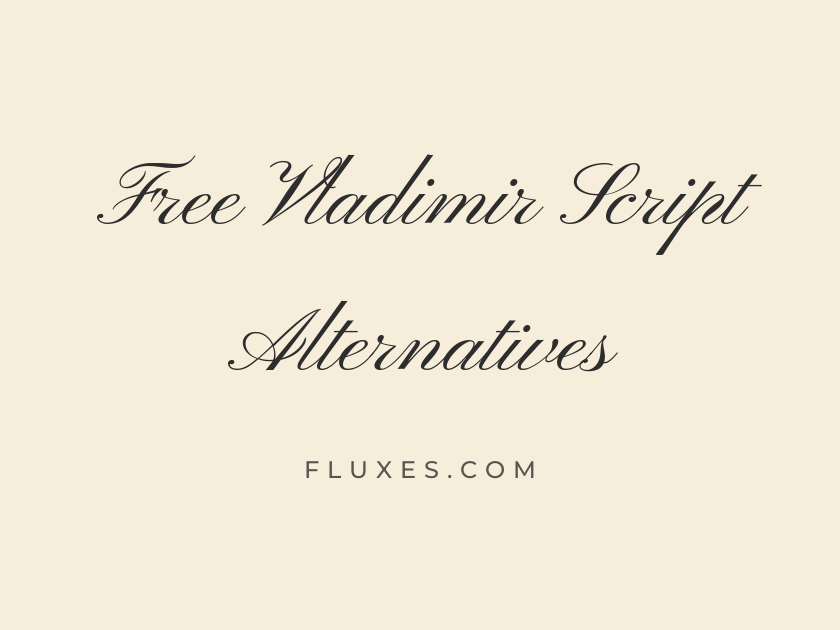
15 Best Free Fonts Alternatives to Vladimir Script
Vladimir Script has long been a go-to choice for wedding stationery, certificates, and luxury branding thanks to its formal, pointed-pen elegance and dramatic thick-to-thin stroke contrast. Because it is a commercial typeface, designers working on a budget or building projects in WordPress often look for free Google Fonts alternatives that capture the same romantic, engraved-calligraphy feeling without the licensing cost. The fonts that come closest share that formal script DNA: flowing connections, graceful swashes, and a sense of occasion that works beautifully on invitations, logos, and hand-lettered branding.
Of everything on Google Fonts, this is the nearest cousin to Vladimir Script in spirit. The tall ascenders, restrained loops, and formal pointed-pen contrast make it a natural substitute for engraved wedding suites, place cards, and monogram work.
Tangerine leans lighter and thinner than most formal scripts, which gives it a very traditional, almost hand-engraved feel on certificates and diplomas. It reads beautifully at large display sizes but can lose its delicate hairlines when shrunk too far, so reserve it for headlines rather than body text.
Alex Brush trades the stiffer, more upright posture of a formal script for a looser, brush-drawn rhythm. It still connects letters gracefully enough to suit invitations, but its slightly casual energy makes it just as at home on packaging labels or a boutique logo.
This one is soft-spoken and airy, with thin strokes that give it a delicate, feminine quality. Pair it with a simple serif for body copy since Allura’s fine lines are meant to be admired, not read in long passages.
Few free scripts have been adopted as widely as Great Vibes, and for good reason: it strikes a dependable balance between flourish and legibility. It has become something of a default for wedding websites and save-the-dates, so if you want a formal script with a bit more individuality, treat this as a reliable backup rather than a first choice.
Parisienne rounds off its letterforms more generously than Vladimir Script, giving it a softer, more approachable warmth. It suits invitations, greeting cards, and branding that wants romance without quite so much old-world formality.
This font mimics genuine handwriting rather than engraved calligraphy, with an irregular, personal rhythm that feels like a signature. It works wonderfully for closing lines, thank-you cards, and anywhere you want a human touch rather than formal precision.
Herr Von Muellerhoff piles on the swashes and loops, making it one of the most ornamental options here. Use it sparingly, on a title or a monogram, since its dense flourishes can crowd into illegibility if set at small sizes or in long phrases.
Thin, tall, and unapologetically formal, Italianno shares Vladimir Script’s fondness for dramatic vertical strokes. It photographs well on foil-stamped invitations and works nicely layered over a soft background image on a wedding website.
Sacramento is lighter on drama and heavier on charm, with a slightly retro, mid-century feel. It suits branding and social graphics that want a script accent without tipping into full bridal formality.
Where many formal scripts stay thin and reserved, Rouge Script has noticeably bolder strokes that hold up well even at smaller sizes. That extra weight makes it a good pick for logos and headers that need a script to actually stand out on screen.
True to its name, this one is narrow, upright, and distinctly formal, closer to old engraving samples than to loose brush lettering. It is a strong choice when you need a script that reads as serious and official, such as certificates or formal event programs.
Meddon has a friendlier, rounder disposition than most of the fonts here, trading strict formality for warmth. It suits invitations for engagement parties, showers, or any event that wants elegance without stiffness.
WindSong’s two-story letterforms and gentle slant give it a modern take on classic script styling. It sits comfortably between casual and formal, making it a flexible option for branding that needs to soften a bit without losing polish.
Marck Script feels closer to natural handwriting than to formal calligraphy, with a relaxed, slightly uneven baseline. It works best in shorter phrases like signatures, quotes, or thank-you notes rather than as a primary display face for formal invitations.
Always test your chosen font in the actual layout before finalizing an invitation or logo. Some scripts that look stunning in a specimen sentence become harder to read once real names and dates are dropped in.
For a typeface as characterful as Vladimir Script, no single free alternative will match it stroke for stroke, but the fonts above cover the same emotional territory, from stately and formal to warm and handwritten. Try a few directly in your layout, since the right choice often comes down to how the flourishes sit next to your specific wording and design.